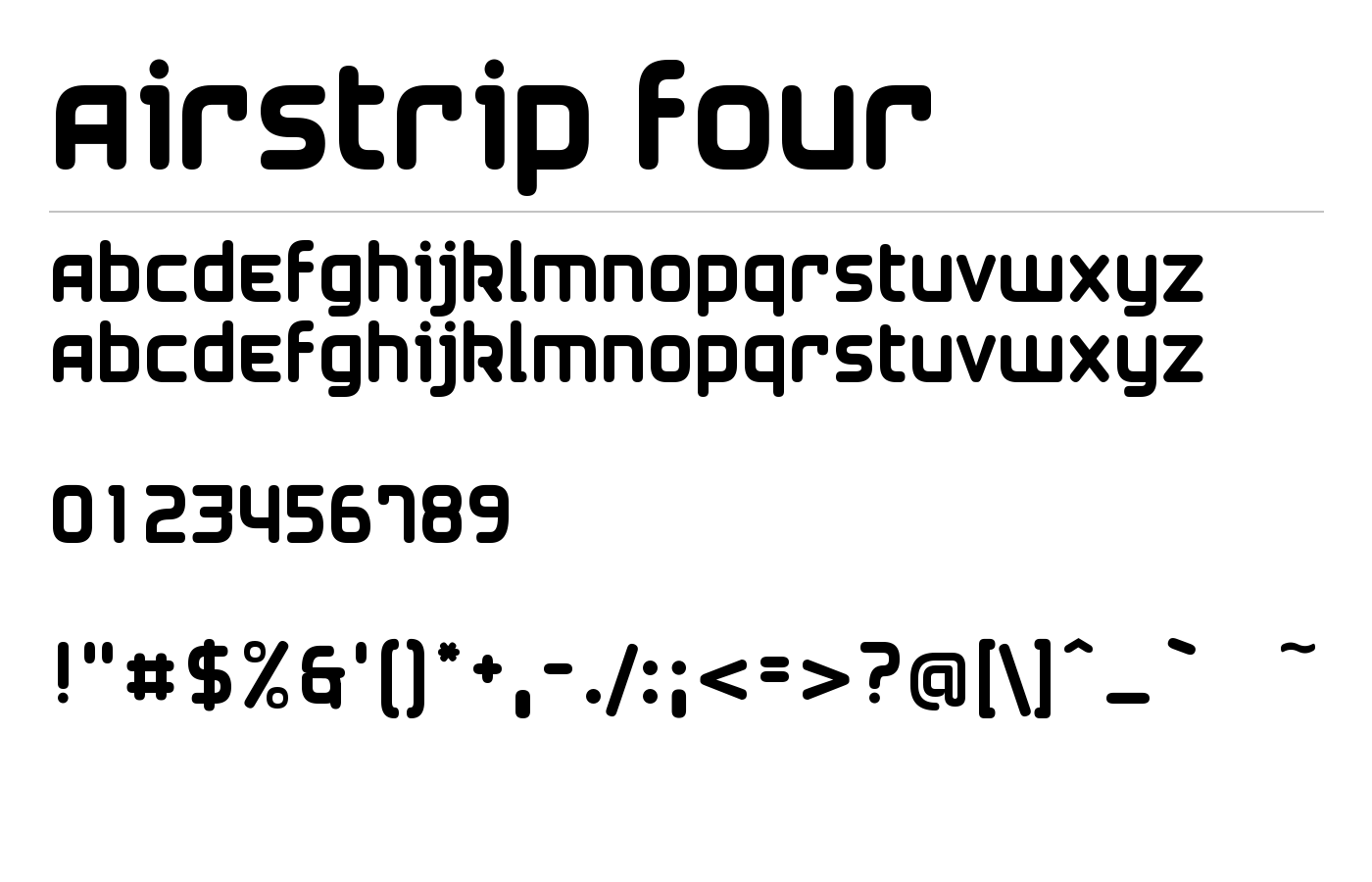
Airstrip Four is a modern sans serif font with a clean, geometric design featuring rounded corners and uniform stroke weight, giving it a friendly yet technical appearance. Its compact width and medium x-height make it highly legible, while the unique shapes of characters like the single-story "a" and curved tail on the "r" add a distinctive, approachable feel. This font works well for technology branding, user interfaces, and headlines where clarity and a contemporary, inviting vibe are essential.
Airstrip Four Font
About Airstrip Four Font
| Font family | Airstrip Four Font |